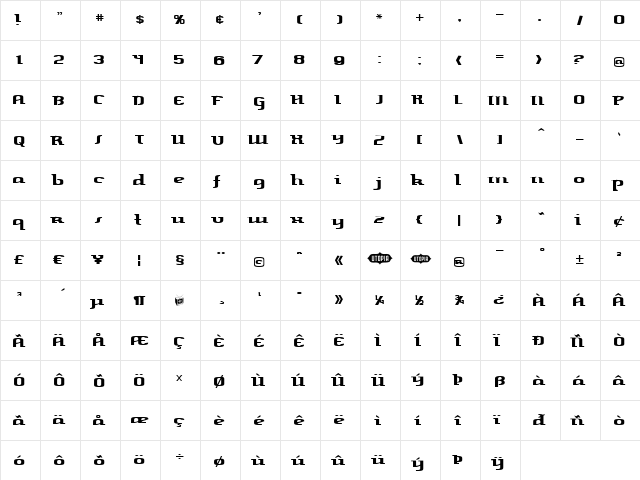
Harper Regular
Design Context for Harper Typeface
Harper is a composed and adaptable typeface that performs quietly and consistently across a wide range of design contexts.
Pro Tip: Pair Harper with a font of contrasting weight or personality to build a more expressive typographic hierarchy.